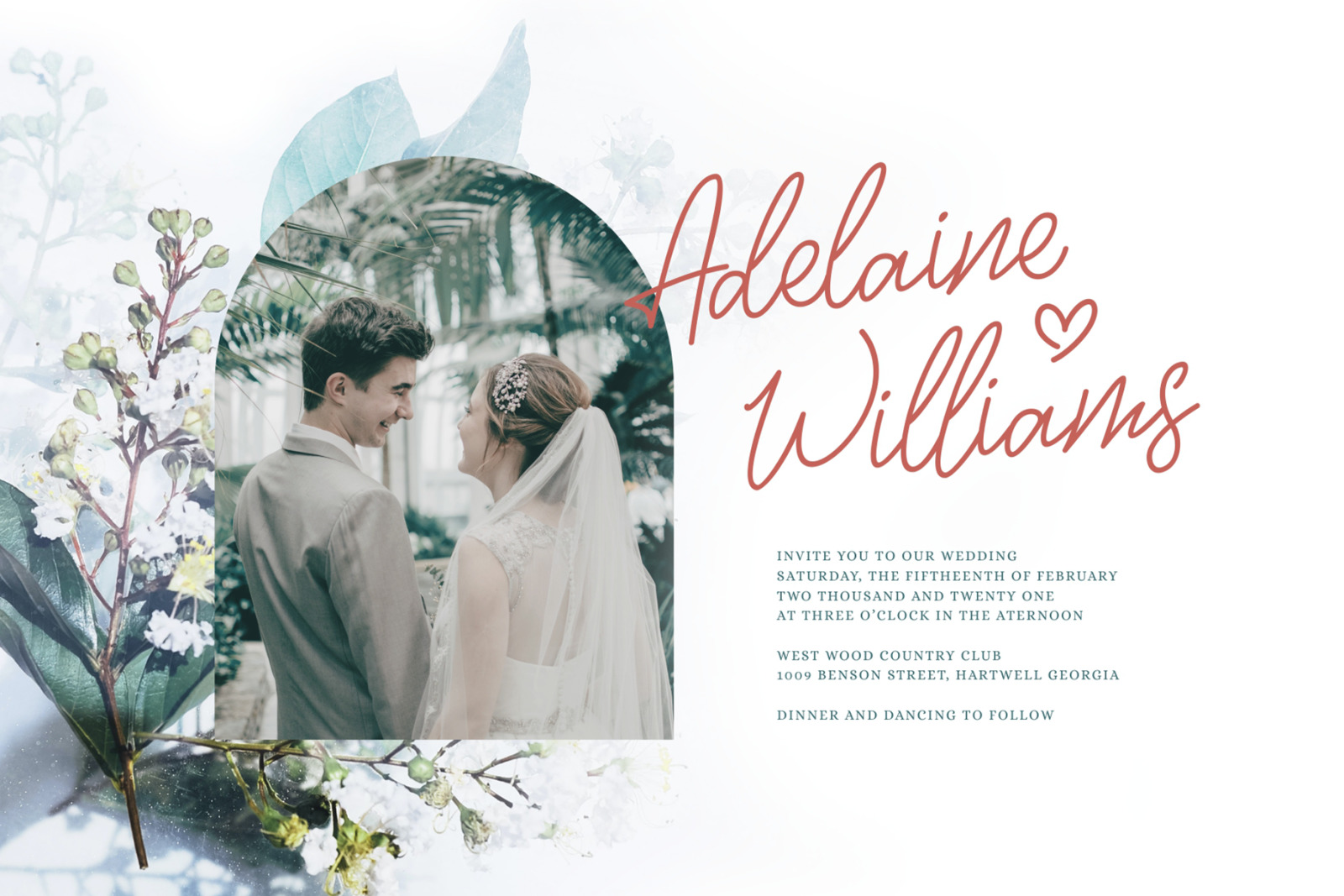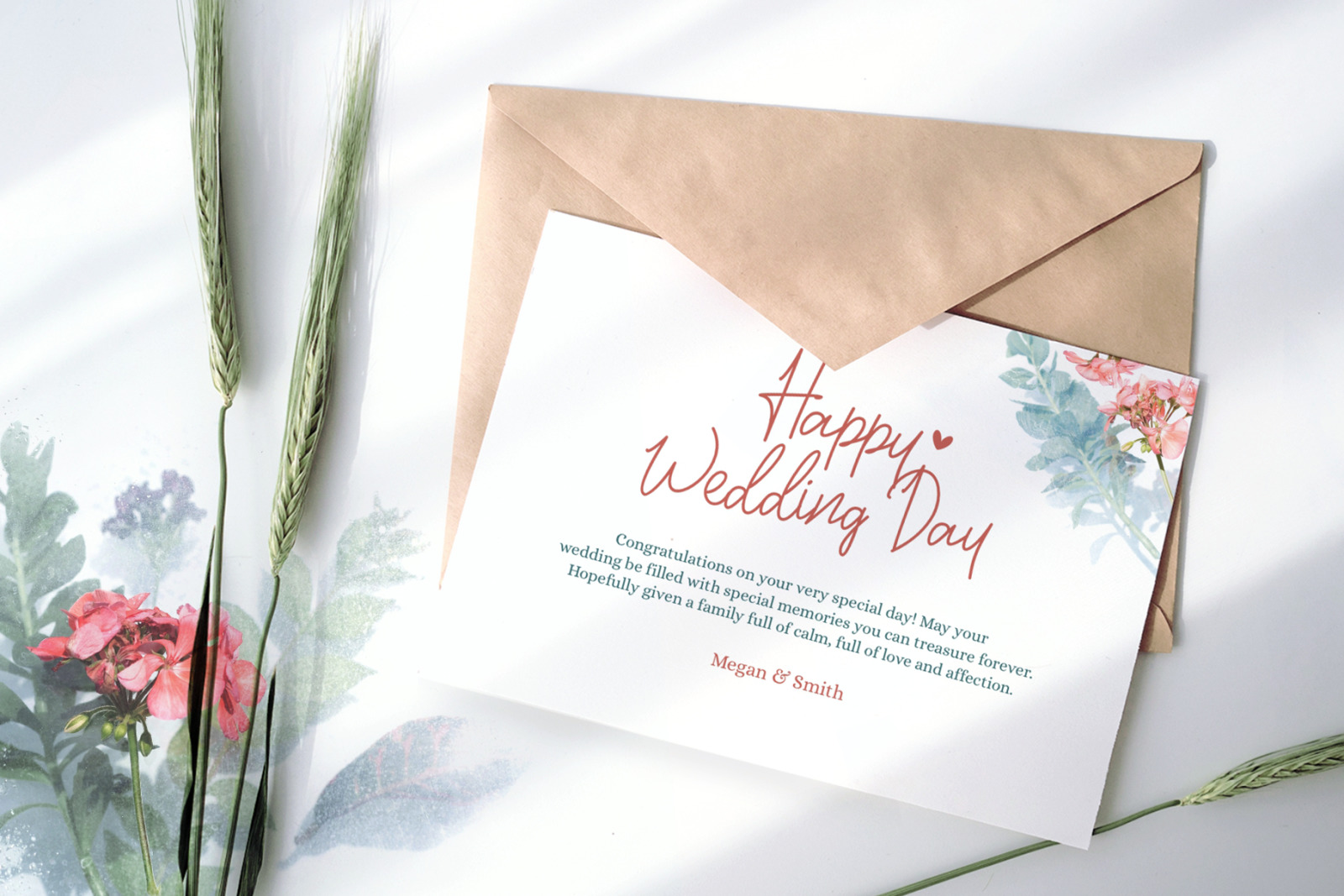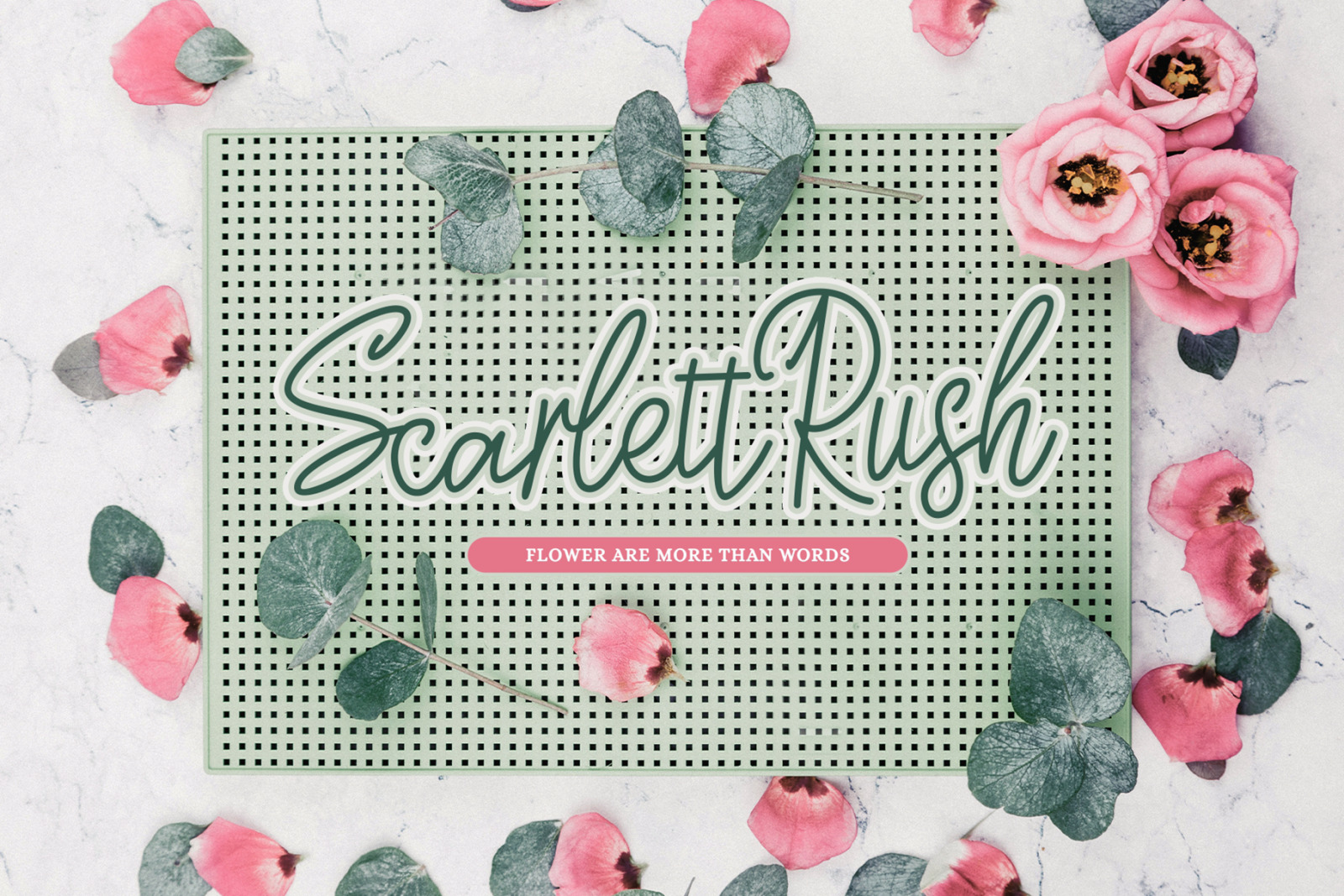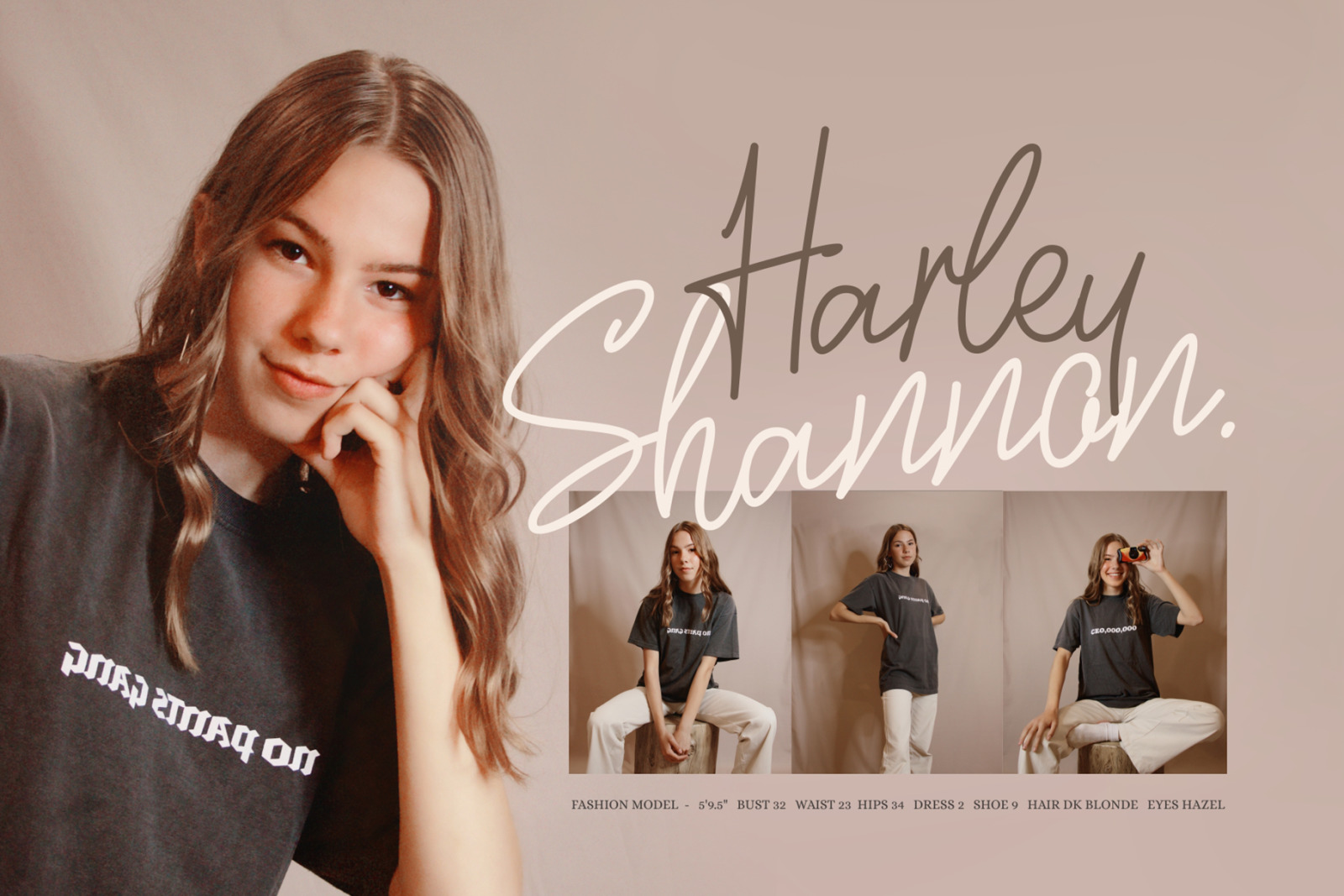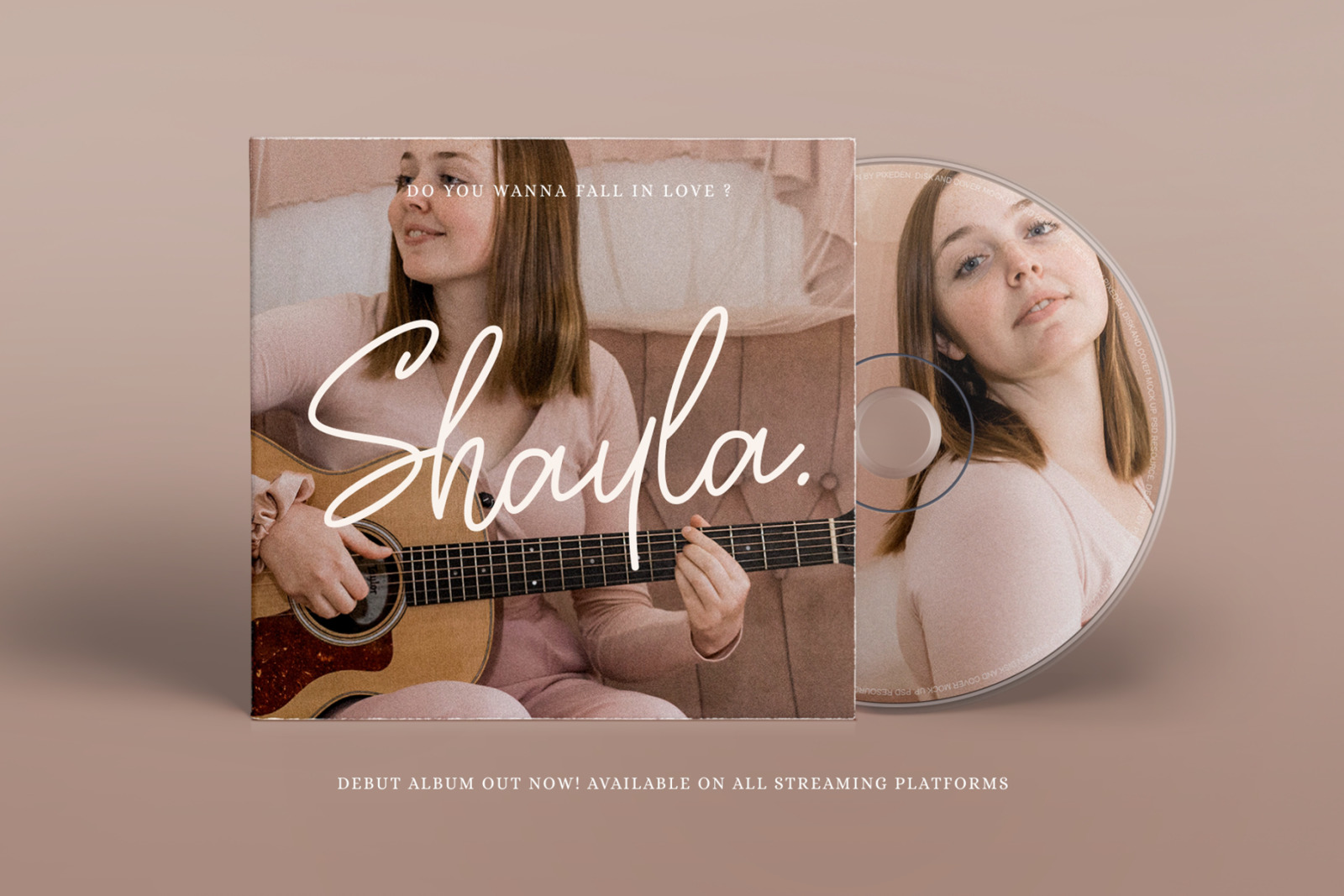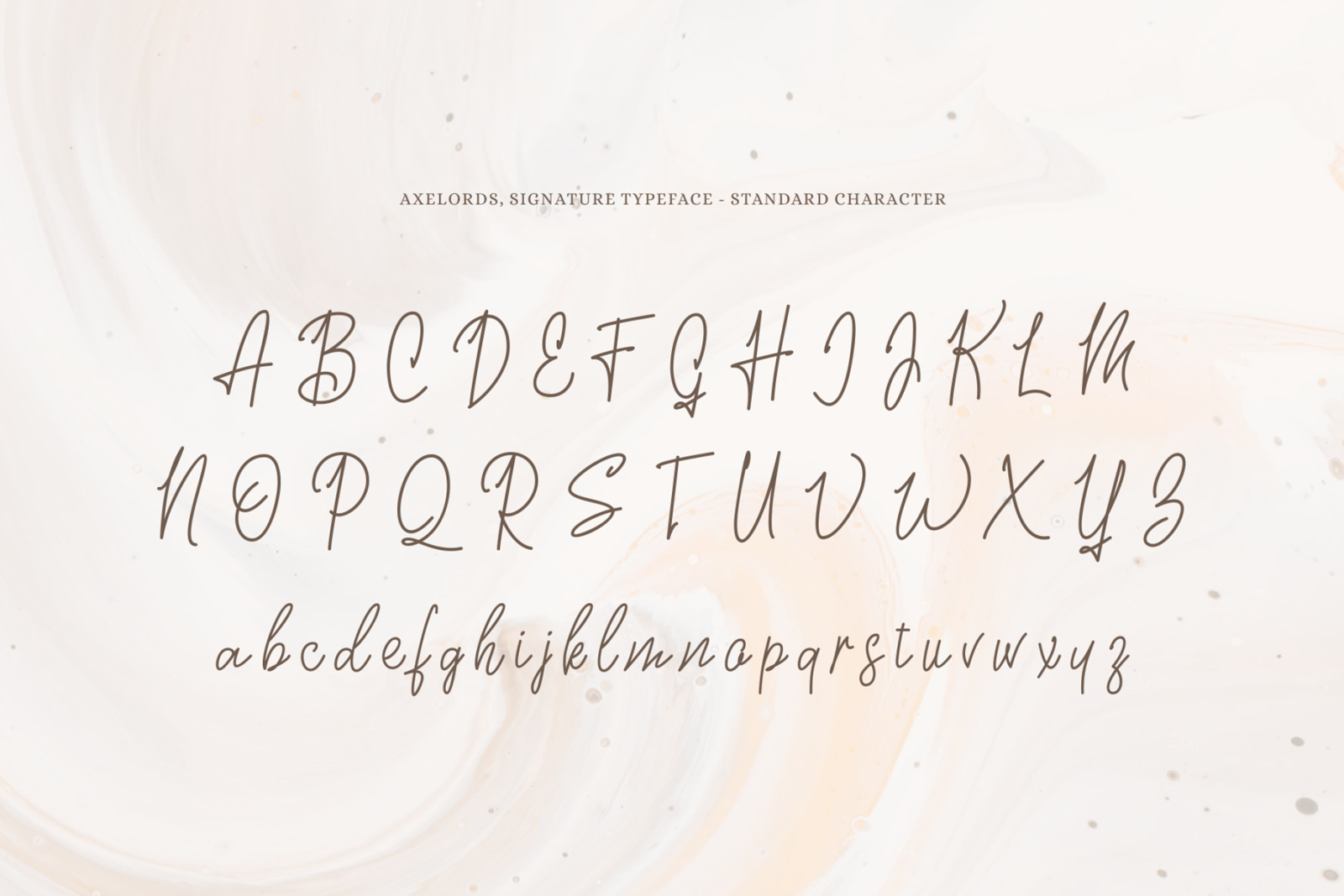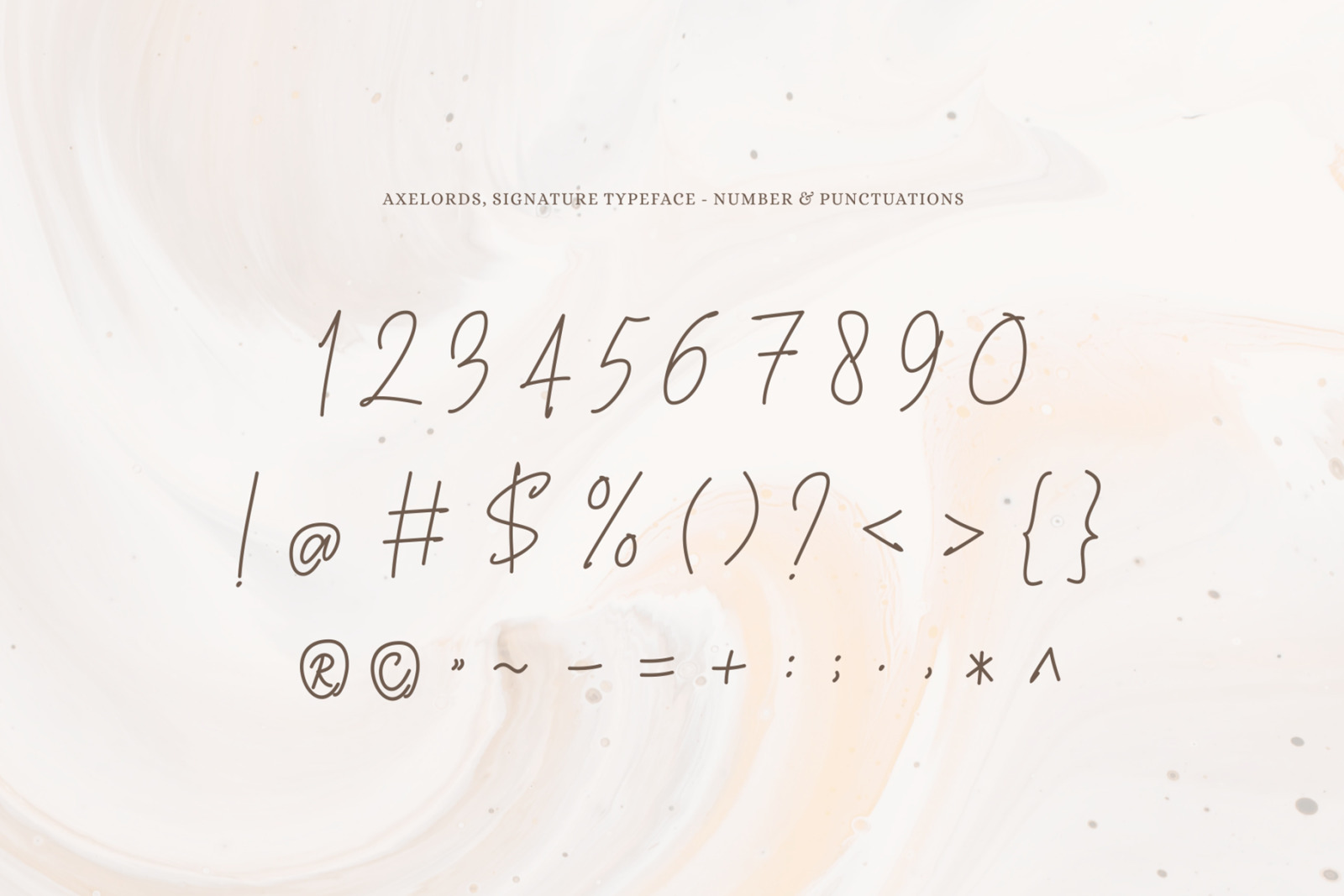
Axelords Font
AXELORDS is a script type font with a signature style. Made with a sket or hand writting process. It is suitable for modern designs such as social media, names on wedding invitations, or also as headlines.